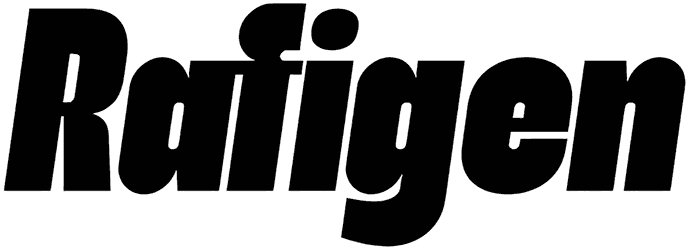
Rafigen Font
It doesn’t matter whether you are using Rafigen as a sans serif font in your posters, headlines, logos, or even branding projects, in both conditions, this masterpiece has the best efficiency. It is an undeniable fact th…
It doesn’t matter whether you are using Rafigen as a sans serif font in your posters, headlines, logos, or even branding projects, in both conditions, this masterpiece has the best efficiency. It is an undeniable fact that due to its simple form and bold characters, it carries a vibe of comfortability, futuristic, or dynamic.